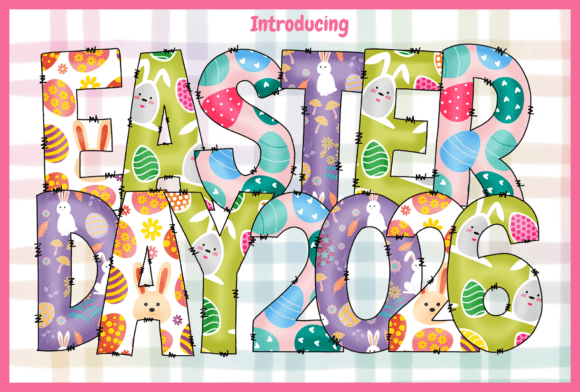
Spring into Creativity with the Easter Day 2026 Font
As you sit down to plan your Easter projects, the blank canvas stares back at you, begging for inspiration. You scroll through Pinterest boards, searching for that perfect combination of colors and patterns to bring your Easter decorations to life. And then, you stumble upon it – the Easter Day 2026 Font. This adorable PNG alphabet set is designed to make your creative process a breeze, with four unique styles and four beautiful color themes to choose from.
With its charming Easter patterns and soft spring-inspired colors, the Easter Day 2026 Font is a valuable addition to any designer’s toolkit. Whether you’re working on Cricut projects, sublimation designs, or scrapbooking layouts, this high-quality alphabet set makes it easy to add a personal touch to your creations. Its transparent backgrounds and versatile design make it perfect for a variety of applications, from classroom decorations to party printables.
- Unique Characteristics: Custom-designed Easter-themed ornaments, symbols, and icons, including Easter eggs, bunnies, and flowers
Easter Day 2026 Font Review
At first glance, the Easter Day 2026 Font seems like a great choice for any spring-themed project. Here are some things that work well: ✨
- Unique and playful design: The font’s Easter egg-inspired elements are a great addition to any design.
- High-resolution support: The font looks crisp and clear in both print and digital formats.
- Flexibility: The font comes in a variety of weights and styles, making it easy to customize for different design needs.
- Limited character set: The font only includes a basic set of characters, which may not be enough for more complex designs.
- Not ideal for body text: The font’s playful design may be distracting when used for large blocks of text.
- Not suitable for formal designs: The font’s Easter theme may be too casual for formal or professional projects.
Overall, I think the Easter Day 2026 Font is a great choice for any spring-themed project that needs a playful and eye-catching design. However, it’s essential to consider its limitations before deciding to use it for a larger or more complex project.
Some tips to get the most out of the Easter Day 2026 Font include:
- Use it for Easter-themed designs, such as invitations, cards, and posters.
- Combine it with other Easter-themed graphics and images for a cohesive look.
- Experiment with different font sizes and colors to create a visually appealing design.